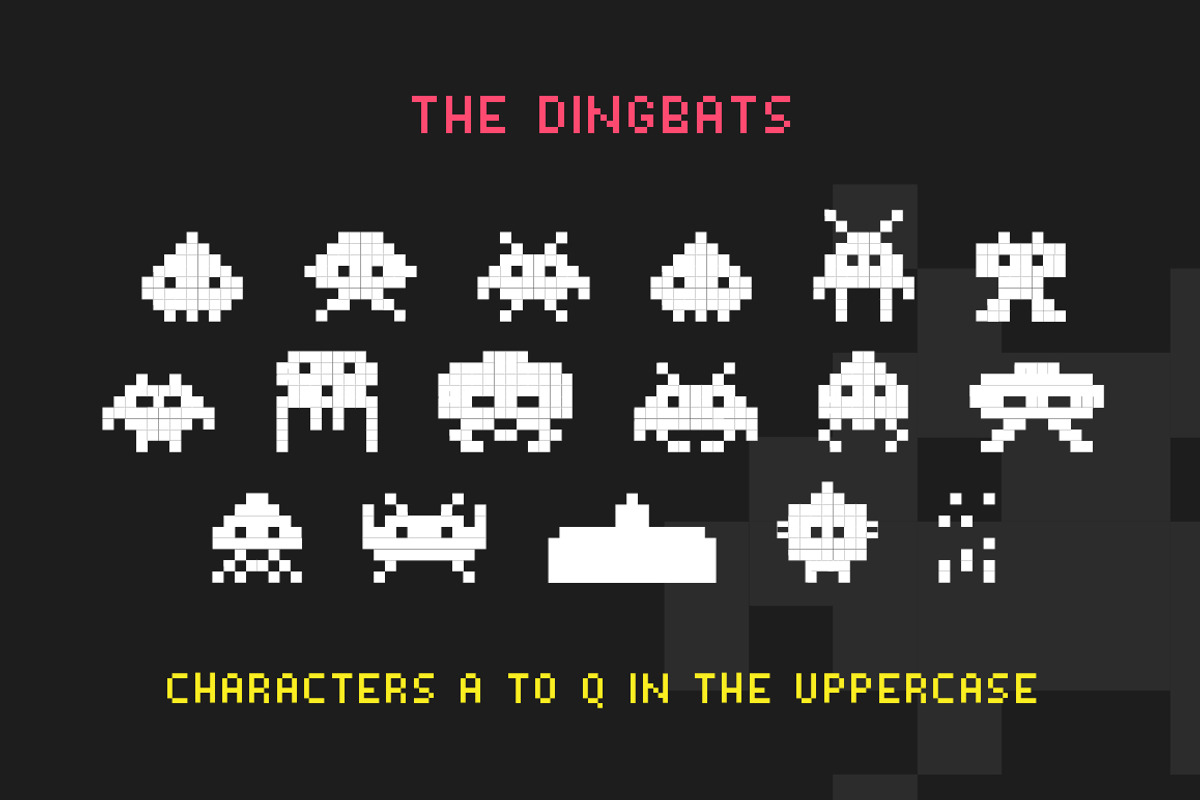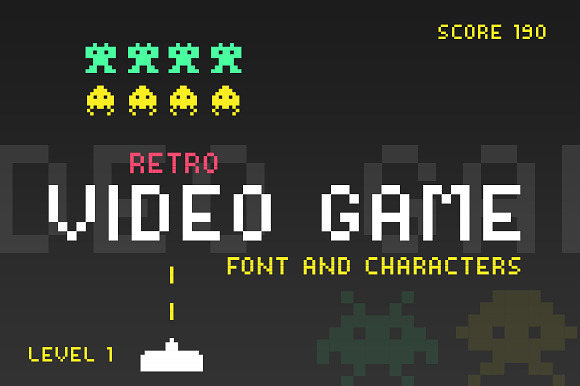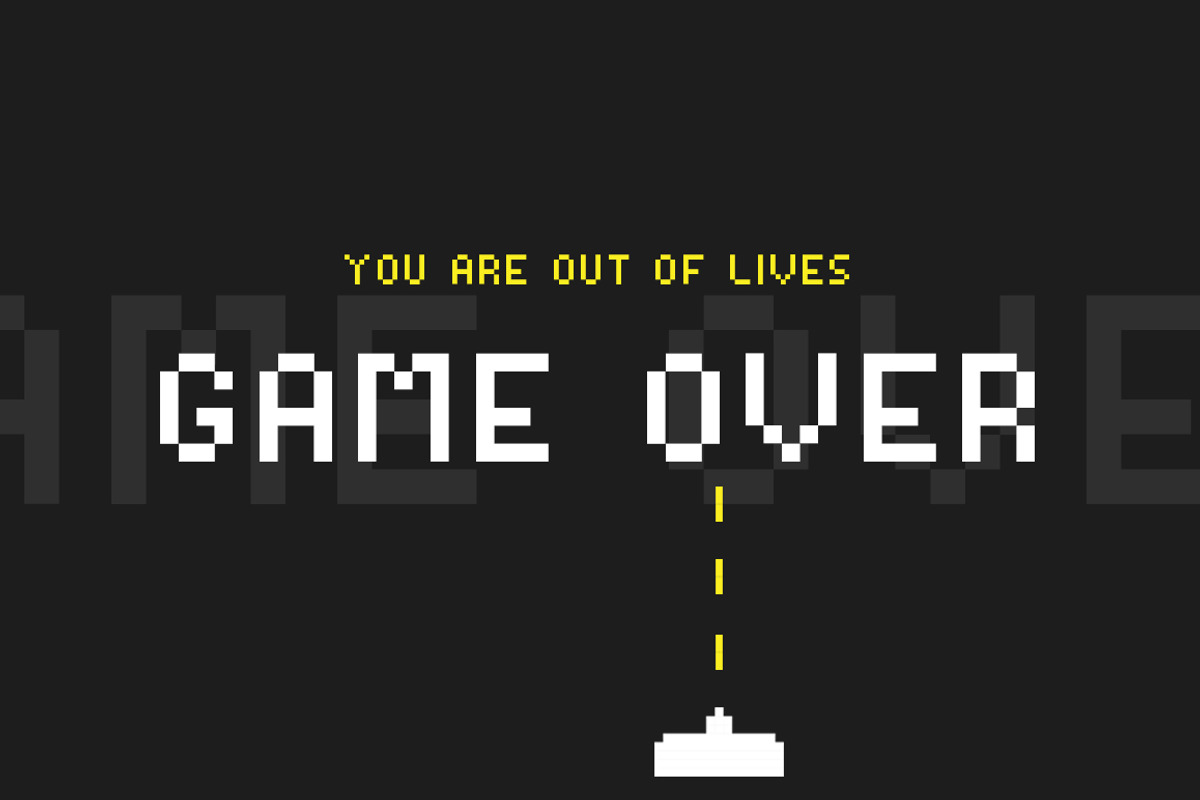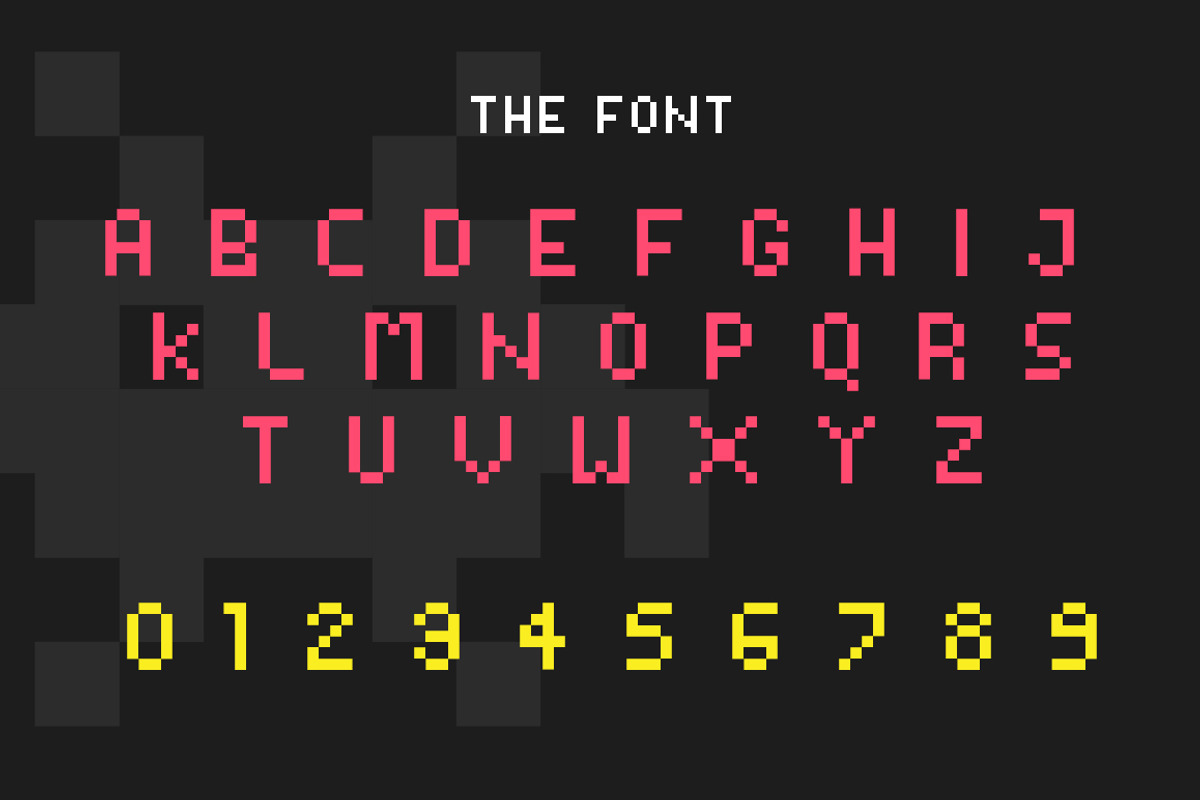
Video Game Font
Check out the fab new font - Video Game! Bringing back all of that 80s nostalgia and perfect for making something look retro cool! Also included are 17 pixel martians! Enjoy 🙂
Use the uppercase characters to display each of the dingbats and lowercase to show each letter.
- Also included are 17 pixel martians!
- Enjoy 🙂 Use the uppercase characters to display each of the dingbats and lowercase to show each letter.